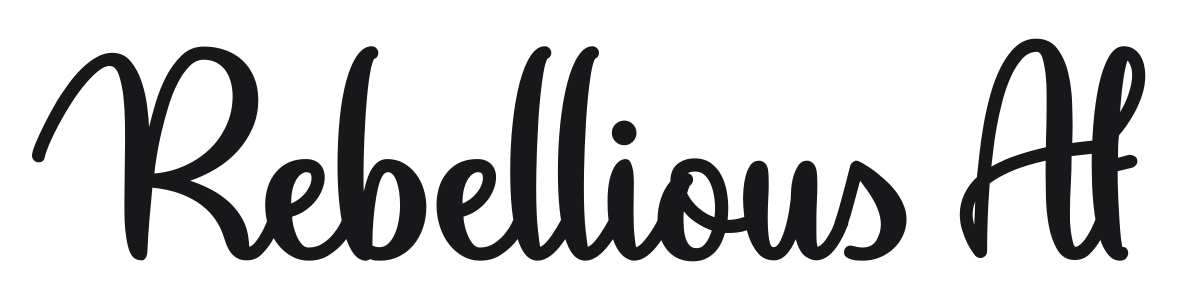
Rebellious Af
Rebellious Af is a bold casual script from Misti's Fonts with confident, flowing strokes and a lively hand-lettered personality. The connected letters bounce along the baseline with enough energy to feel spontaneous without losing legibility at headline sizes. It carries a modern, youthful warmth that suits branding, packaging, and social media graphics.